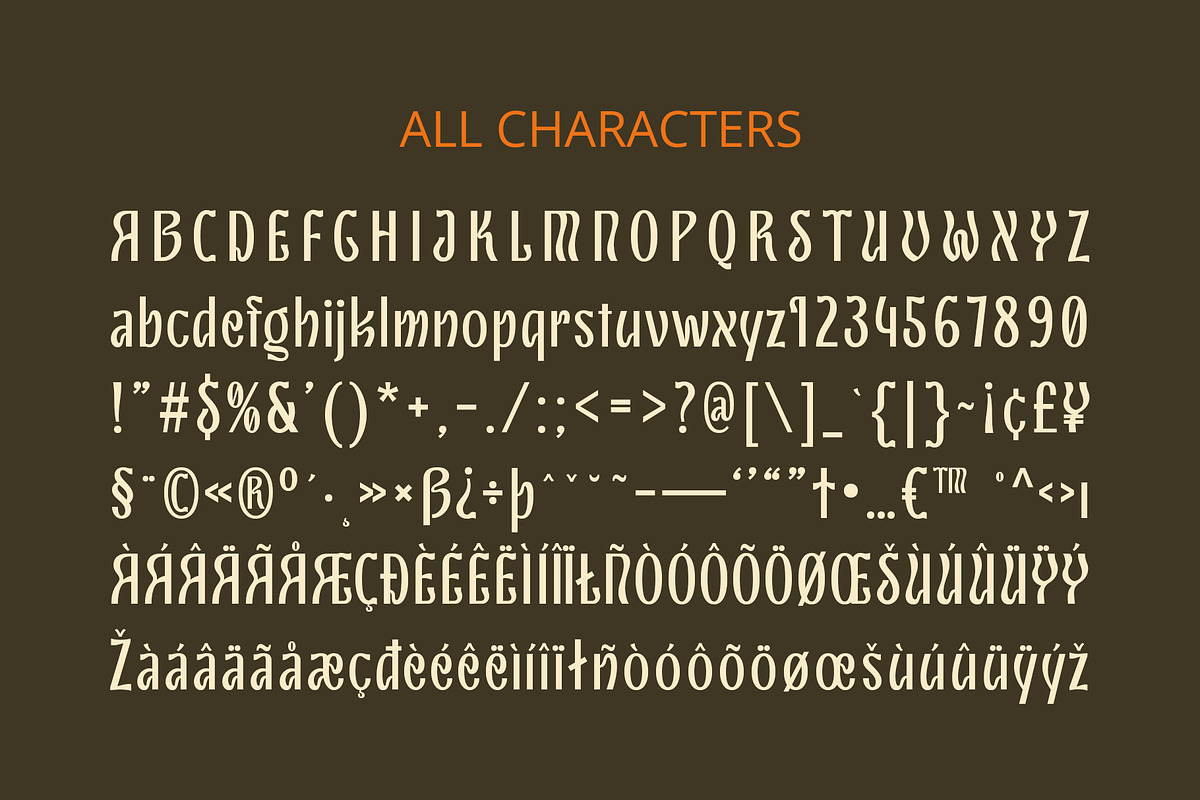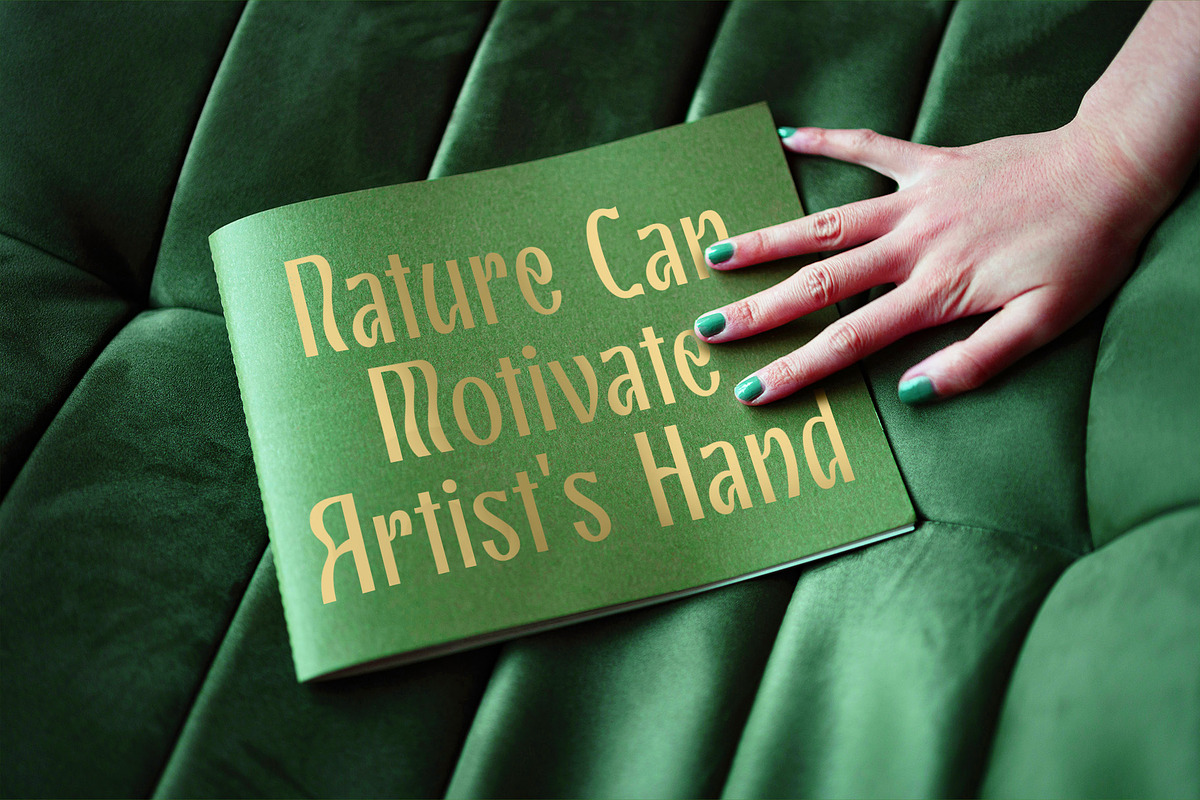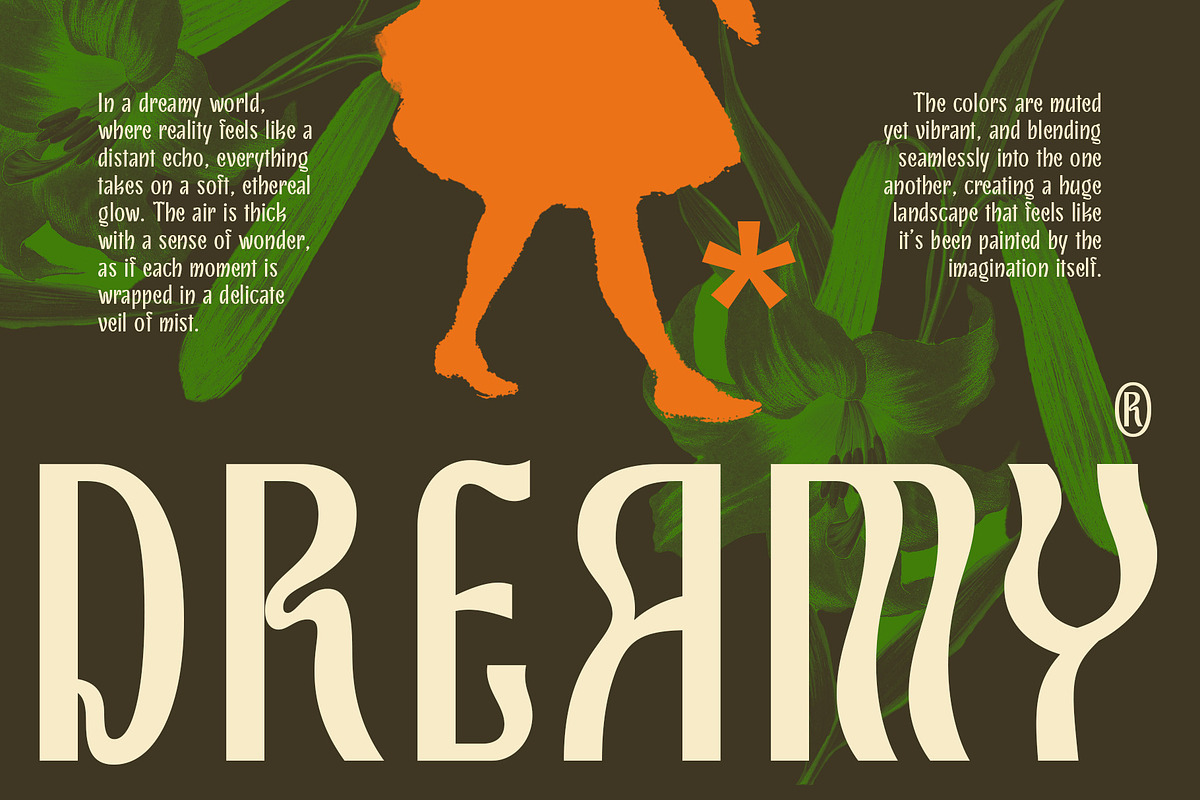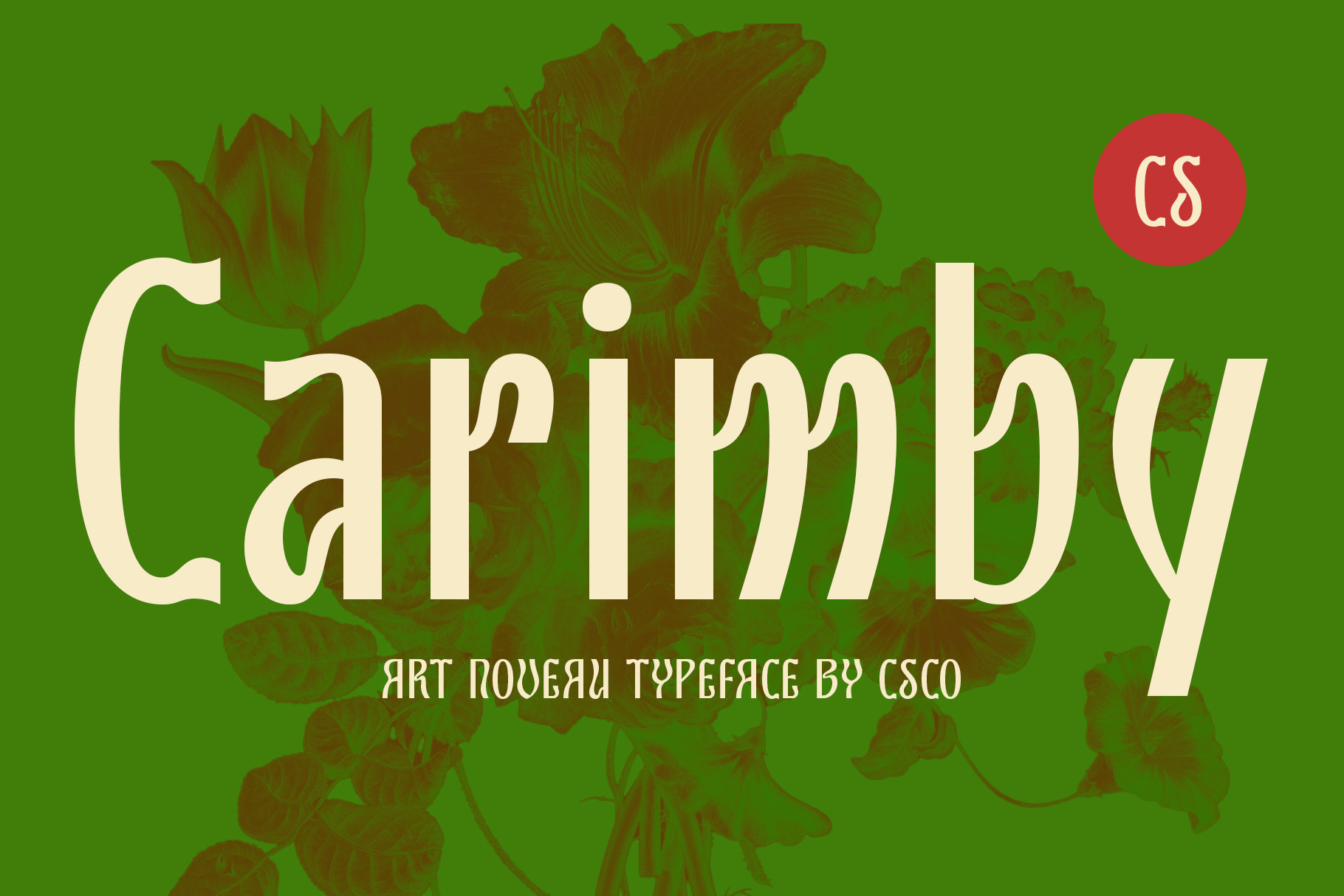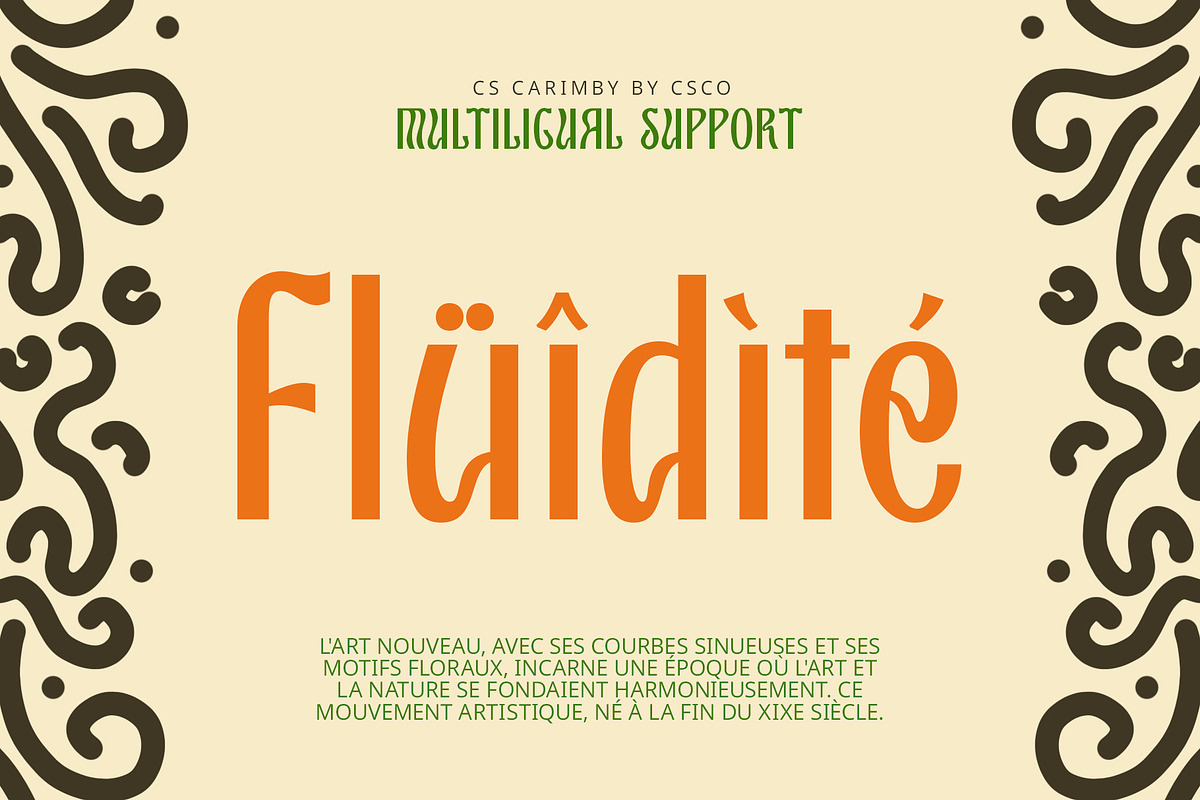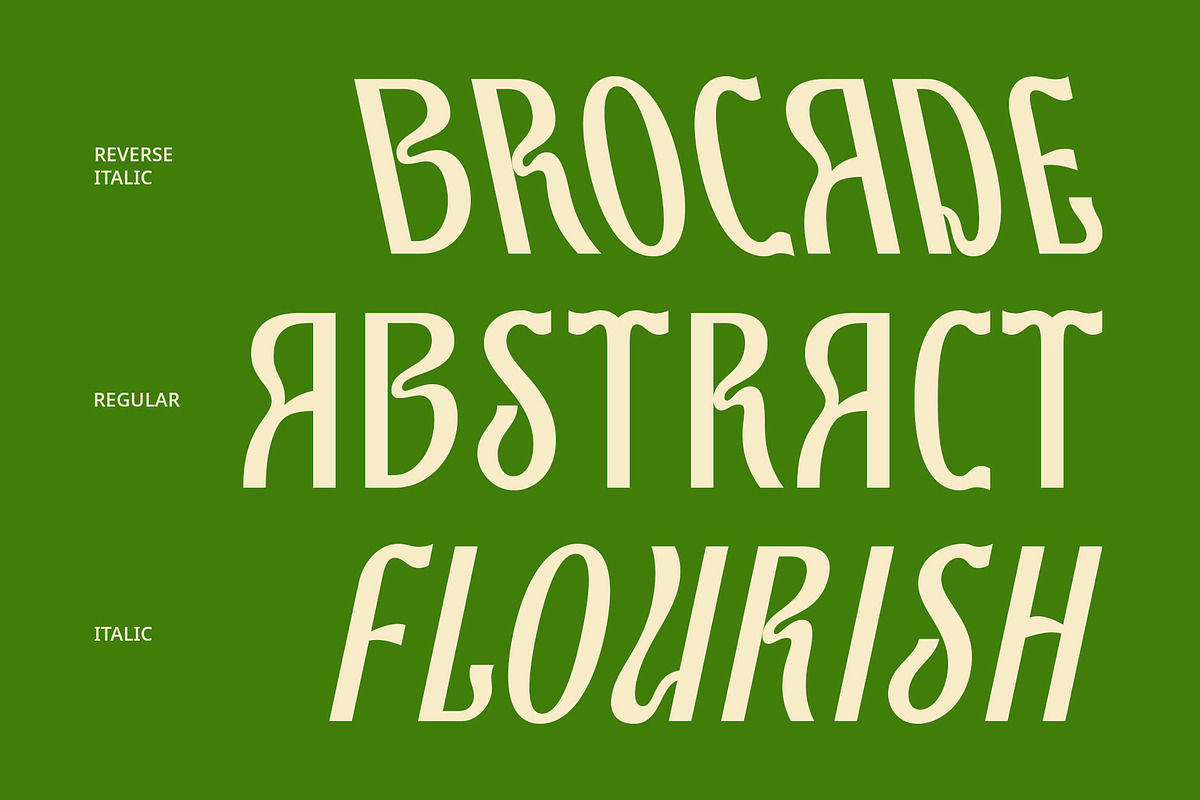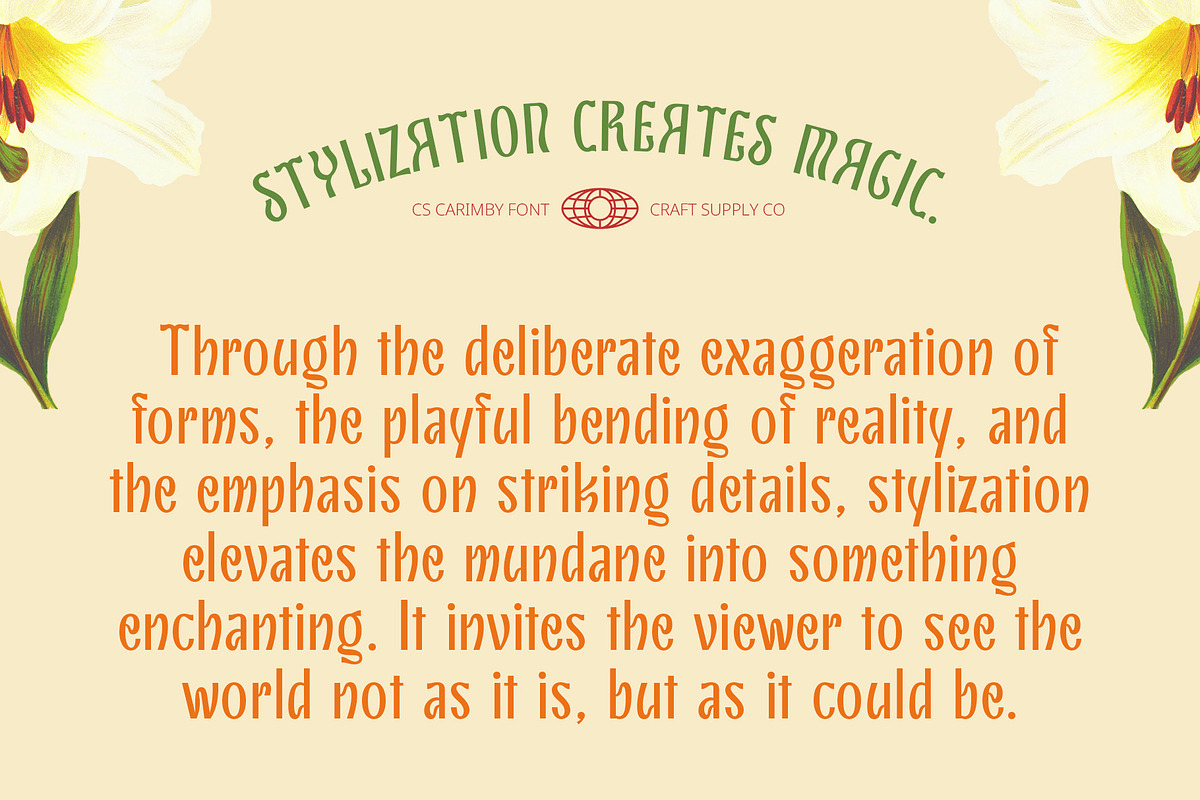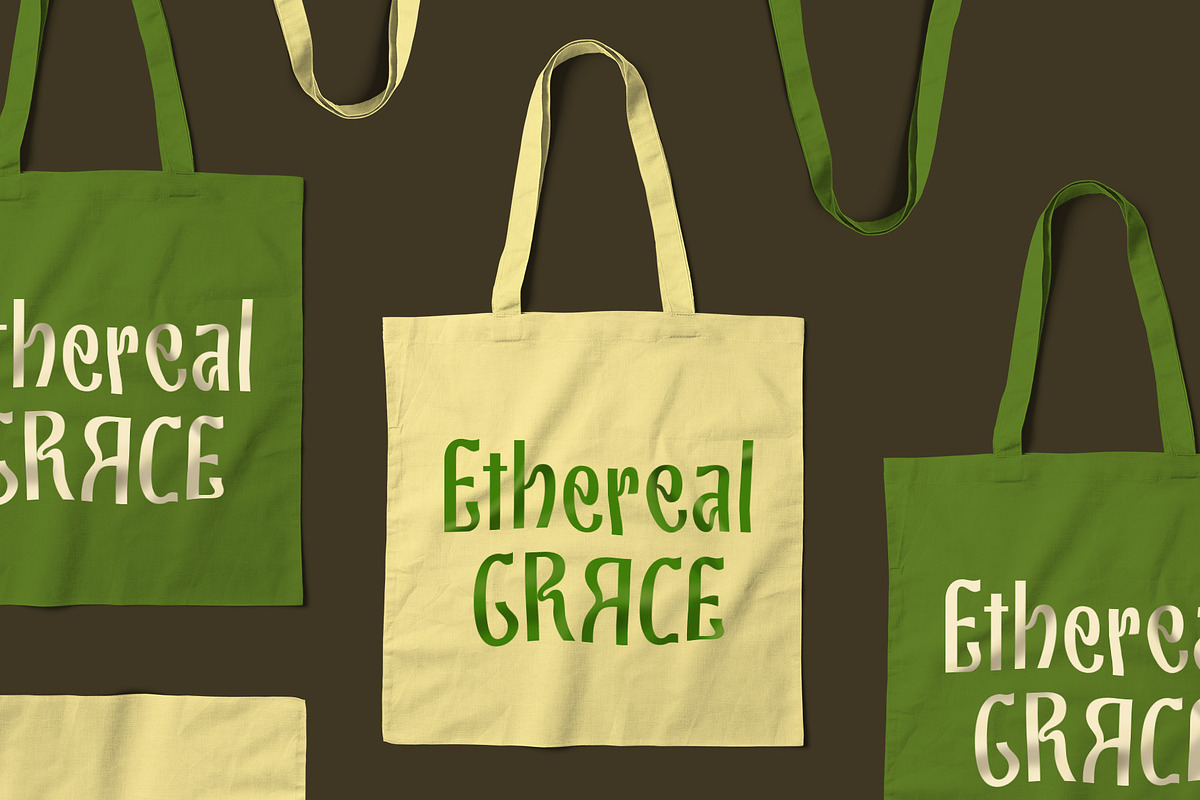
CS Carimby – Art Nouveau Font
CS Carimby – Art Nouveau Sans-Serif Font
Flowing Organic Design CS Carimby is a sans-serif font inspired by the Art Nouveau style, combining natural beauty with refined elegance. Its letterforms feature soft curves, flowing lines, and intricate decorative details, creating a visually captivating and artistic aesthetic. The font’s design evokes a sense of organic grace, blending seamlessly with the principles of Art Nouveau to offer a unique and sophisticated appearance.
Elegant and Artistic Appeal Ideal for projects that seek to highlight visual beauty and artistic flair, CS Carimby excels in adding an elegant touch to any design. Whether used for invitations, branding, or graphic design, this font provides a refined and enchanting look that enhances the overall aesthetic. Its flowing forms and decorative elements make it perfect for creating high-end designs that emphasize sophistication and natural beauty.
Versatile for Creative Projects CS Carimby is versatile and well-suited for a variety of design applications. Its elegant and artistic style ensures that it stands out in contexts where visual beauty and creativity are paramount. From upscale branding to visually engaging invitations, this font delivers a graceful and distinctive impression, making it an excellent choice for projects that aim to captivate and inspire.
- CS Carimby Regular
- CS Carimby Italic
- CS Carimby Reverse Italic